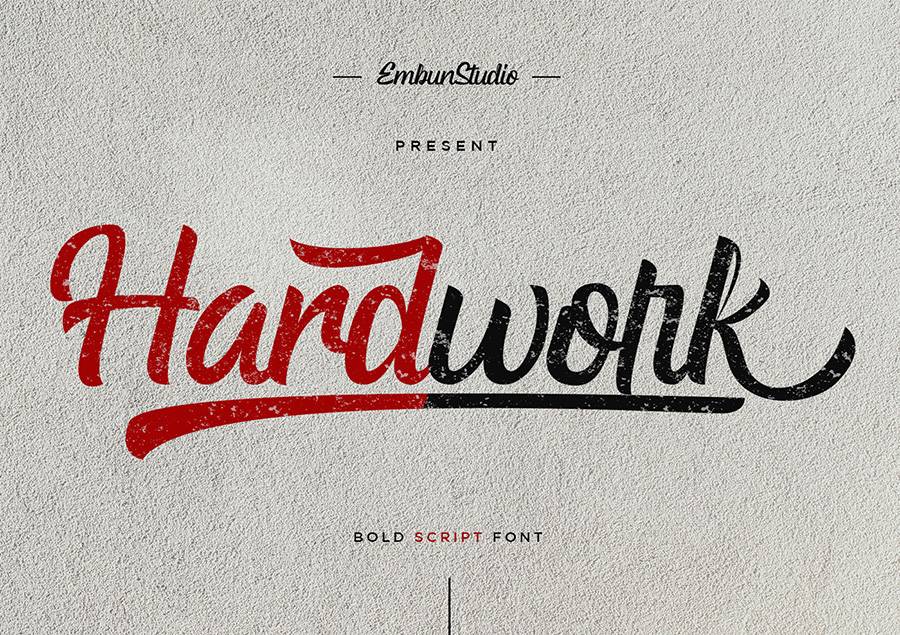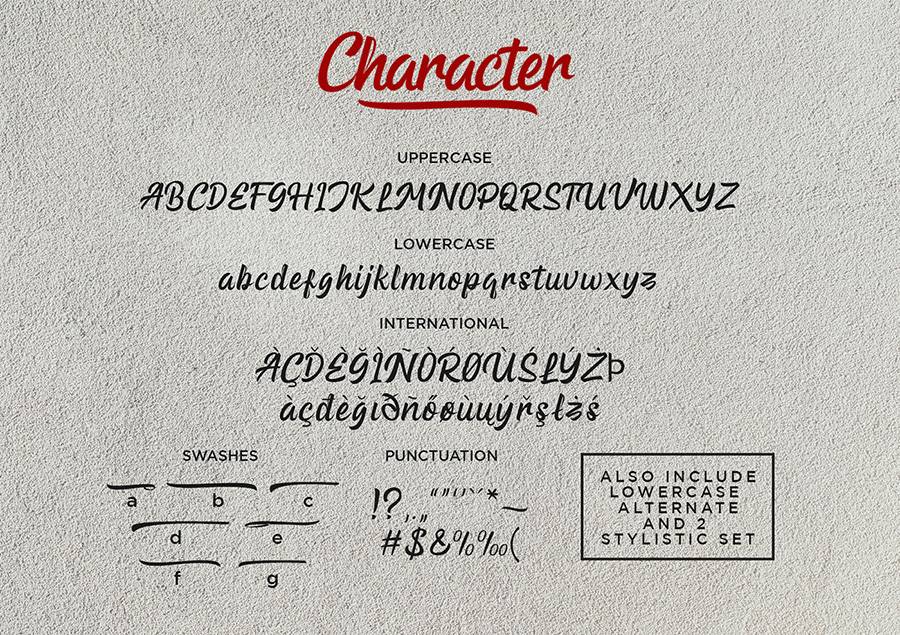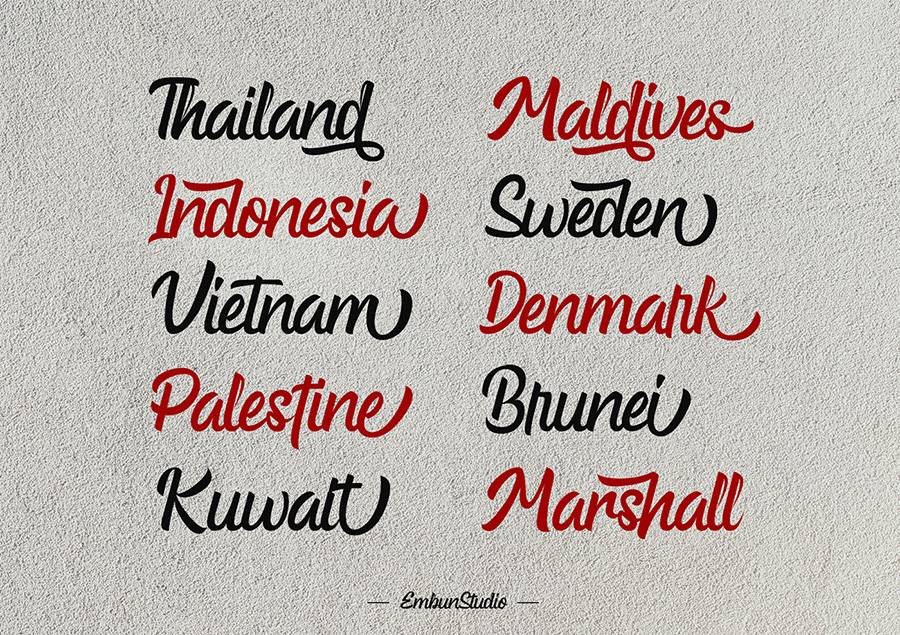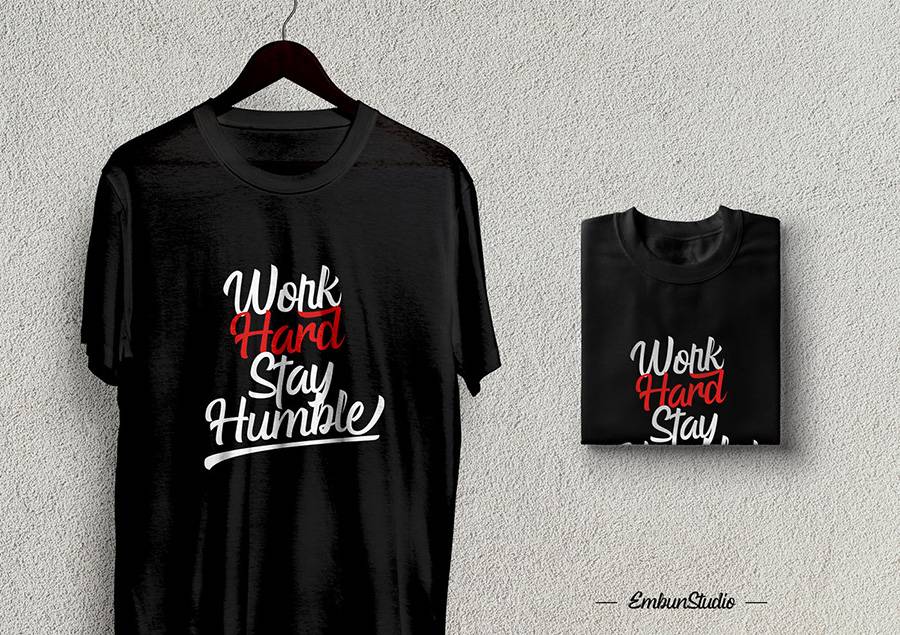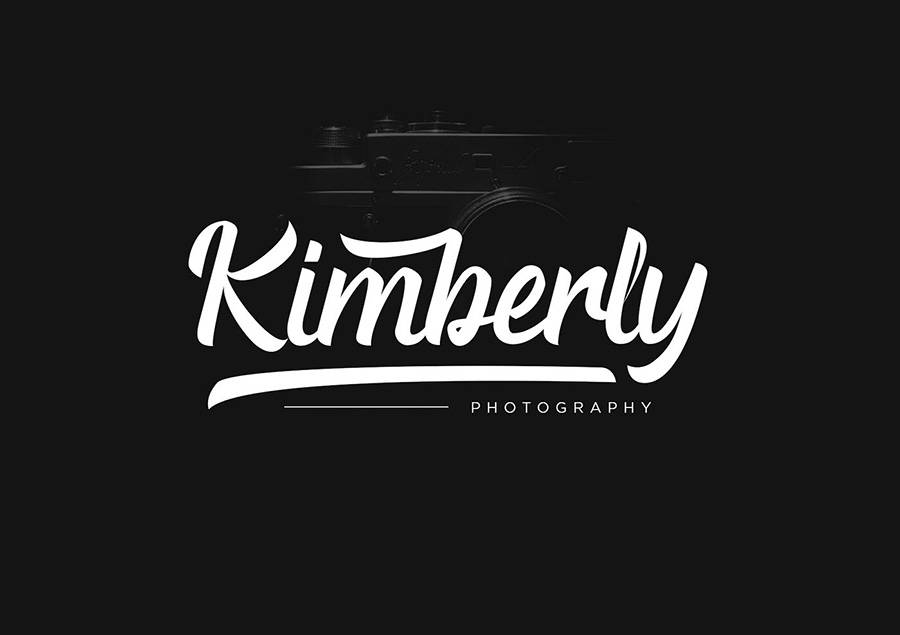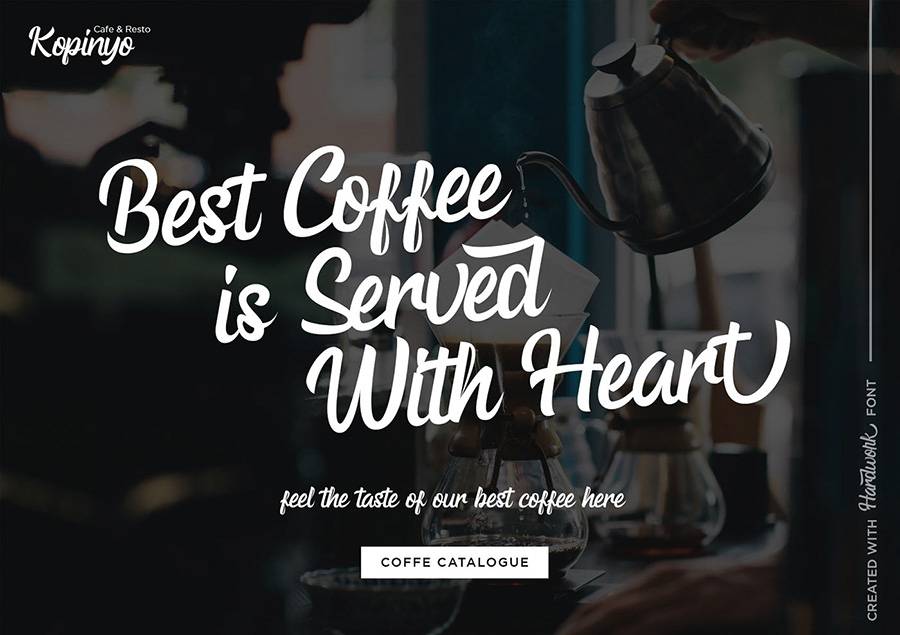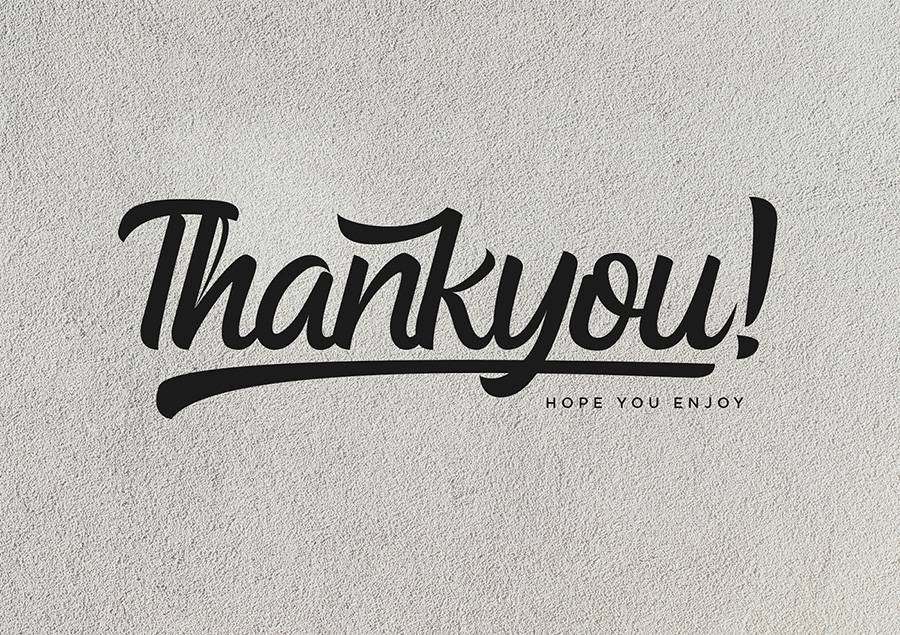
Hardwork Bold Script Font is a lively and bold script typeface characterized by its smooth, flowing letterforms and strong weight. Its dynamic strokes and slight slant give it an energetic and handcrafted feel, making it perfect for creative branding, eye-catching headlines, and stylish packaging. This font works well where a youthful, friendly, and approachable look is desired, adding personality and flair to any project.
Hardwork Bold Script Font
About Hardwork Bold Script Font